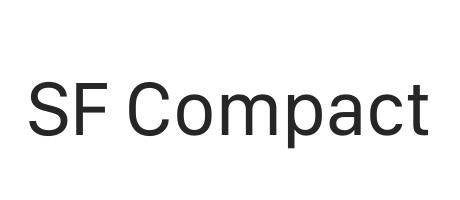
SF Compact
By Apple
Category  Sans-serif
Sharing many features with the SF Pro, the SF Compact features an efficient, compact design that is optimized for smaller sizes and narrower columns. SF Compact is the system font for watchOS and includes a round version.